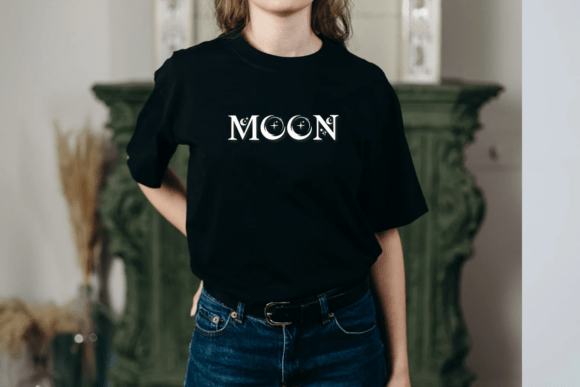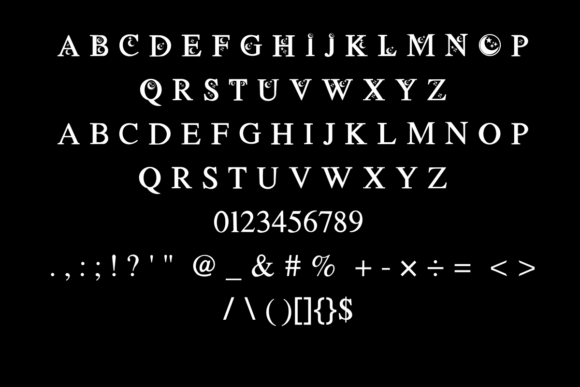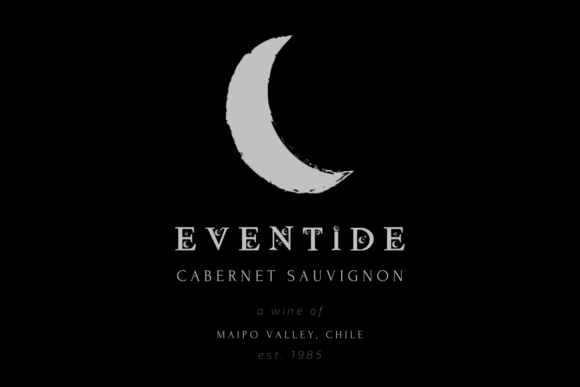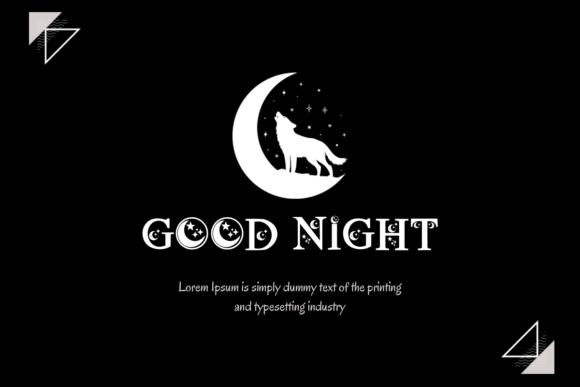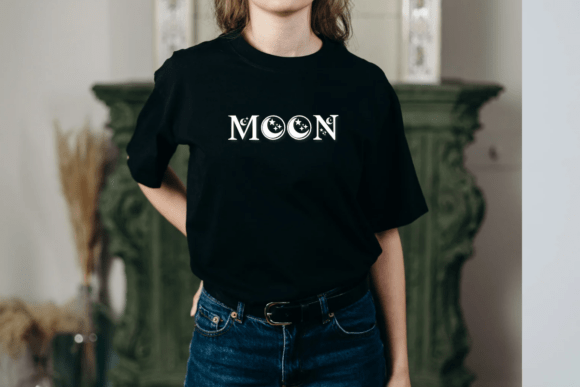
Divine Moon — A Celestial Decorative Font
Step into a world of cosmic elegance with Divine Moon, a stunning decorative font inspired by the magic of the night sky. Each letter feels as if it’s been kissed by stardust — glowing softly with moonlit charm and celestial balance. Perfect for dreamers, designers, and anyone who wants their text to shimmer with a touch of fantasy.
Elegant and Enchanting
Divine Moon combines classic serif structure with delicate star and moon elements, creating a sense of graceful mysticism. The design captures the beauty of lunar phases and celestial symbols, making it ideal for spiritual, mystical, or fantasy-themed projects. Whether you’re crafting a logo, invitation, or book cover, this font is sure to add a touch of magic to your design.
Perfect for Every Magical Creation
This font shines on various design projects, including:
- Logos: Add a touch of celestial elegance to your brand’s logo.
- Invitations: Create enchanting invitations for special occasions like weddings, baby showers, or birthday parties.
- Tarot designs: Bring mysticism and wonder to your tarot card designs.
- Book covers: Make your book stand out with a captivating cover design.
- Apparel: Add a touch of magic to your clothing and accessories.
- Moon-inspired decor: Create beautiful wall art, posters, or prints that celebrate the beauty of the moon.
Design Aesthetic
Every character in Divine Moon is crafted with attention to cosmic detail, ensuring that each letter, number, and symbol is a masterpiece of celestial design. The font’s classic serif structure provides a sense of sophistication, while the delicate star and moon elements add a touch of whimsy and fantasy.
Key Features of Divine Moon
- Celestial inspiration: Inspired by the magic of the night sky, Divine Moon is perfect for designs that require a touch of mysticism and wonder.
- Elegant and enchanting: Combines classic serif structure with delicate star and moon elements, creating a sense of graceful mysticism.
- Versatile: Suitable for various design projects, including logos, invitations, tarot designs, book covers, apparel, and moon-inspired decor.
- Attention to detail: Every character is crafted with attention to cosmic detail, ensuring that each letter, number, and symbol is a masterpiece of celestial design.
Why Choose Divine Moon?
Divine Moon is the perfect choice for designers and crafters who want to add a touch of magic to their designs. With its celestial inspiration, elegant and enchanting design aesthetic, and versatility, this font is sure to spark imagination and creativity.
Tips for Using Divine Moon
- Experiment with colors: Try pairing Divine Moon with celestial-inspired colors like blues, purples, and silvers to enhance the font’s magical effect.
- Play with textures: Add a touch of whimsy to your design by incorporating textures that resemble starry night skies or moonlit landscapes.
- Mix and match: Combine Divine Moon with other fonts to create a unique and captivating design.
Divine Moon is a stunning decorative font that is sure to add a touch of magic to your designs. With its celestial inspiration, elegant and enchanting design aesthetic, and versatility, this font is perfect for designers and crafters who want to spark imagination and creativity. Whether you’re working on a logo, invitation, tarot design, book cover, or apparel, Divine Moon is the perfect choice for anyone who wants to create a piece of art that shines with a touch of fantasy.